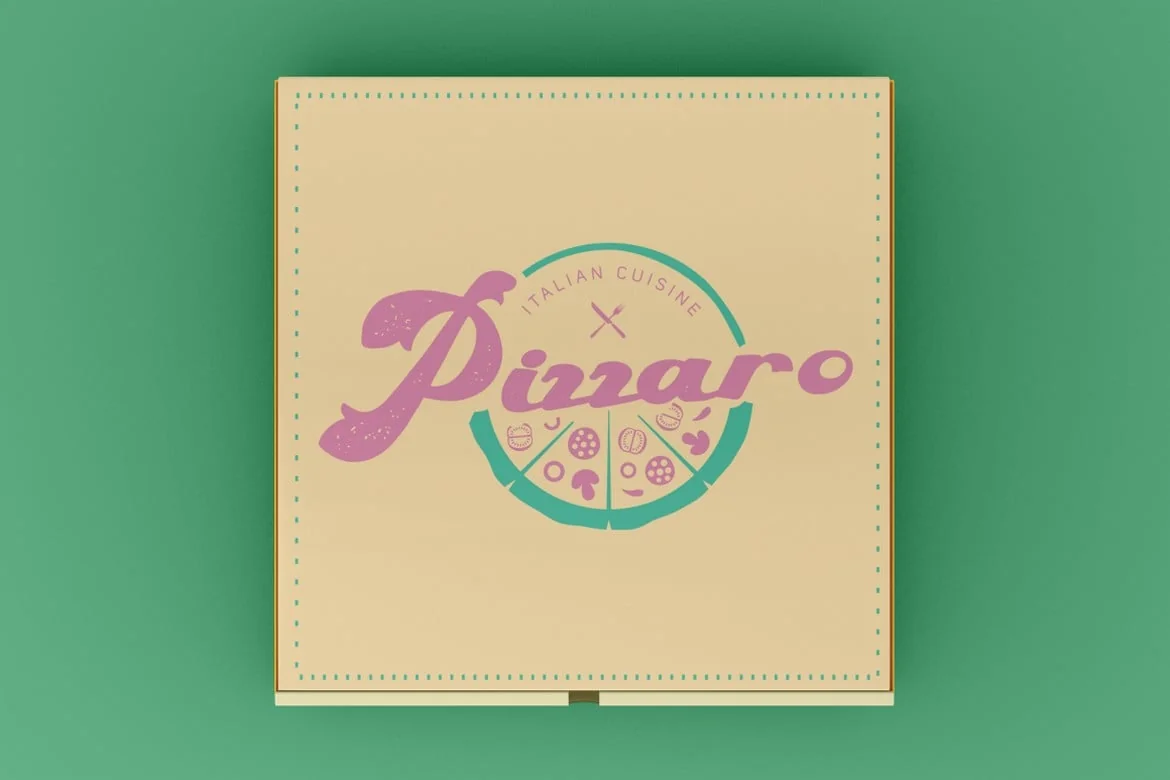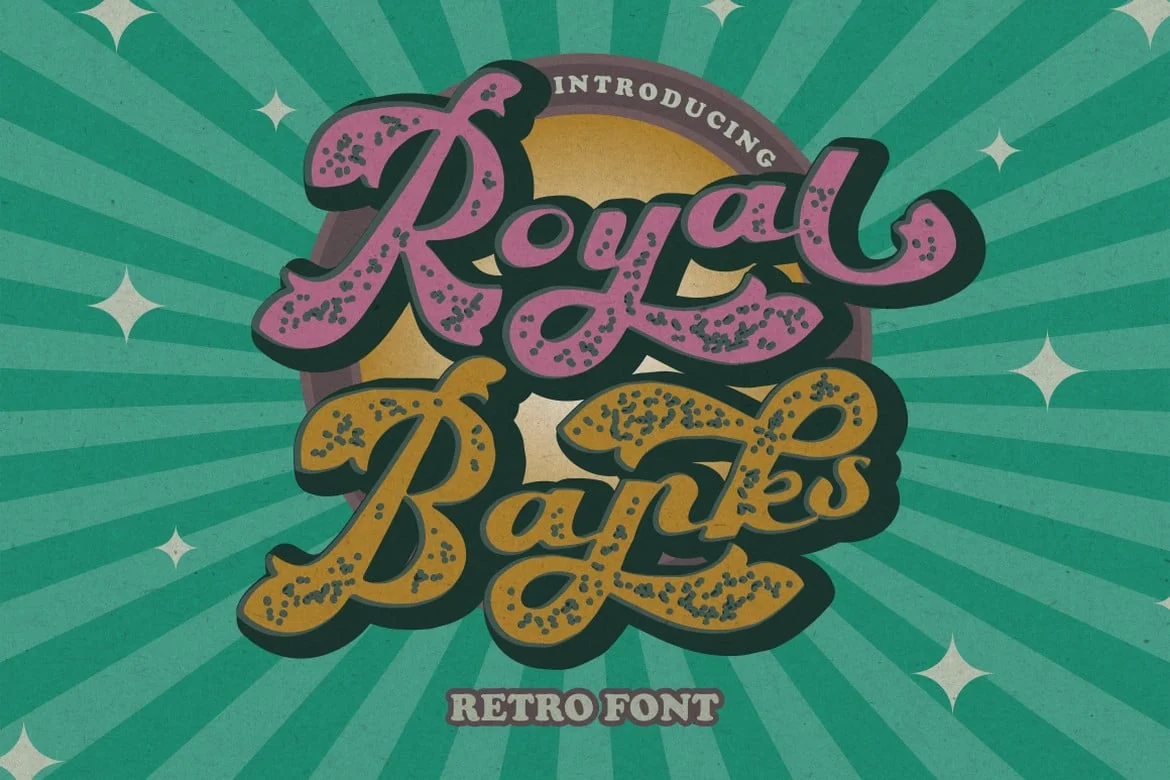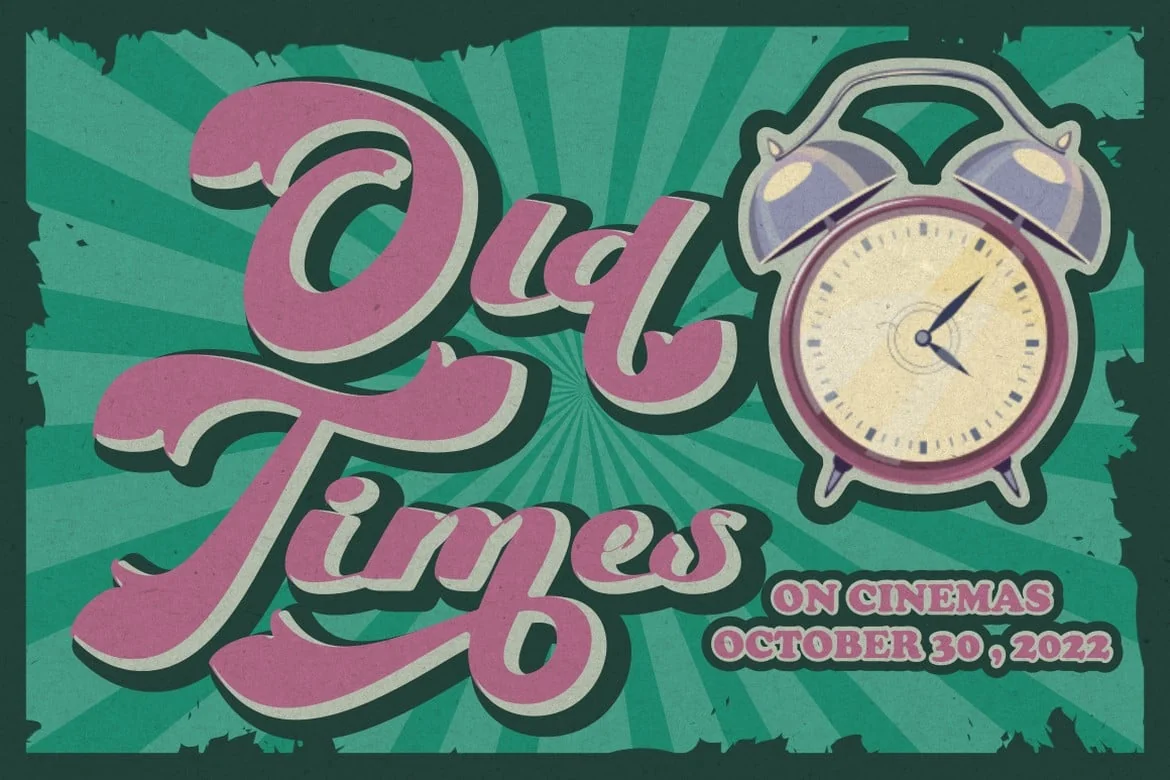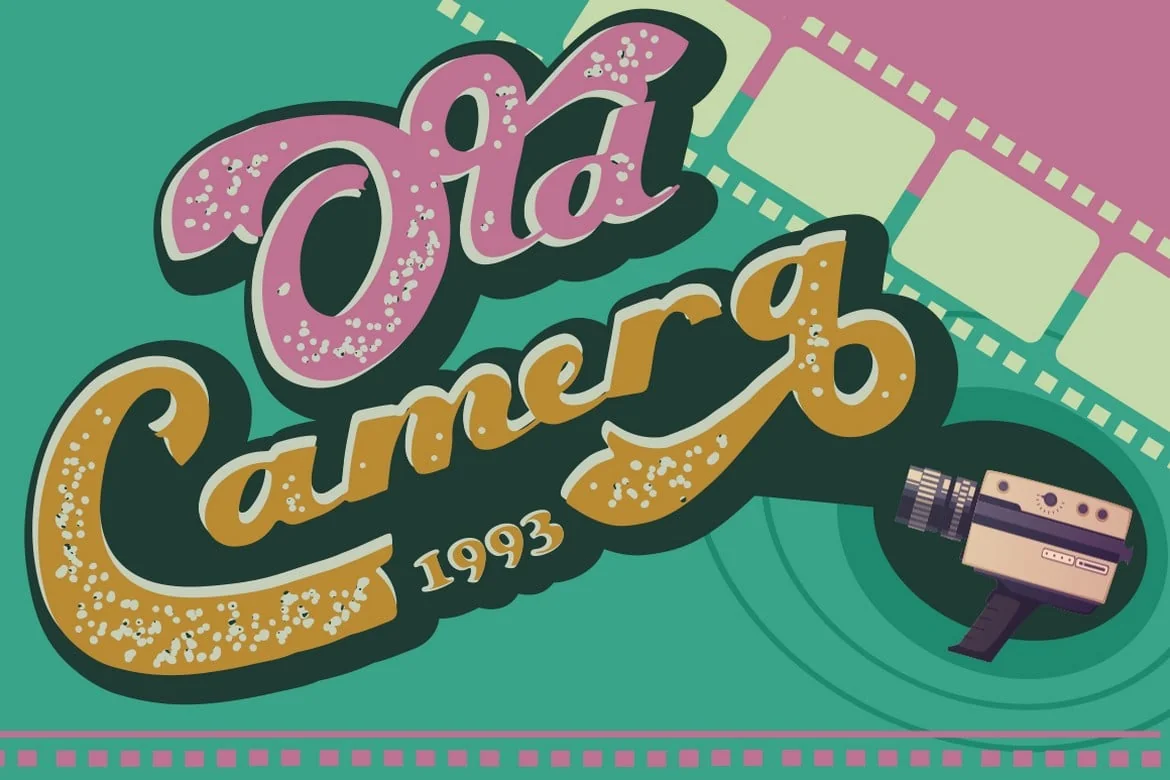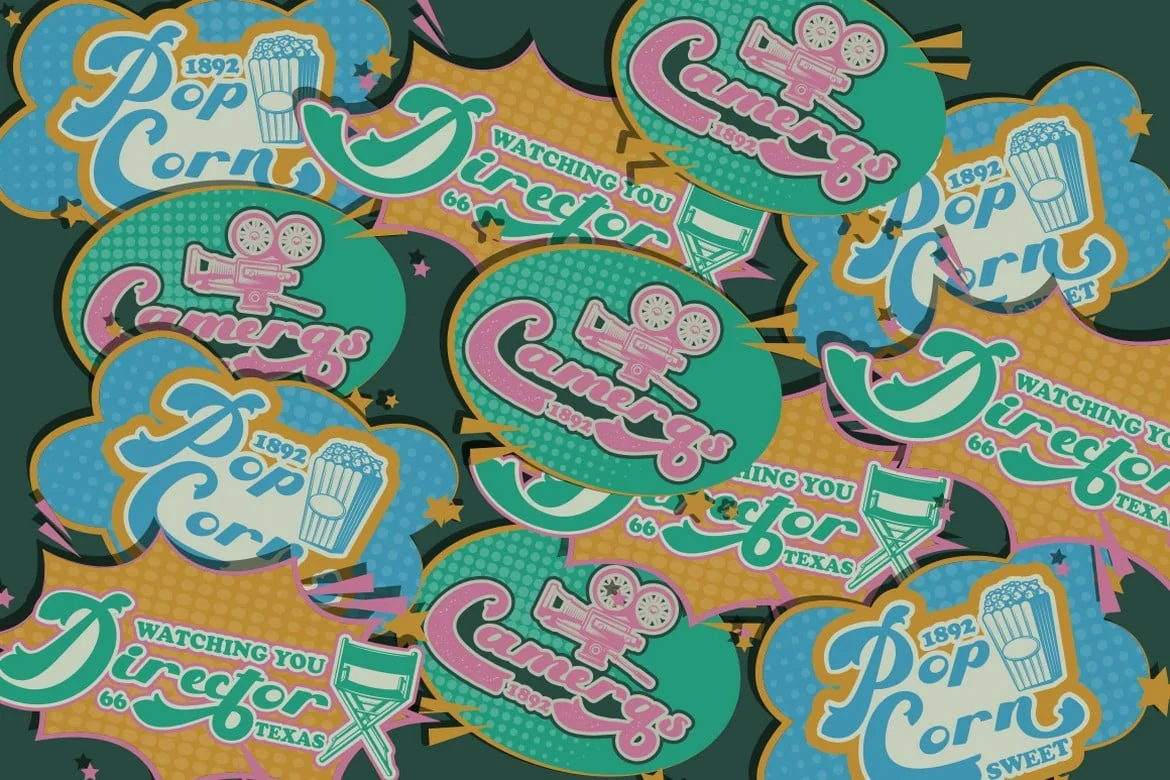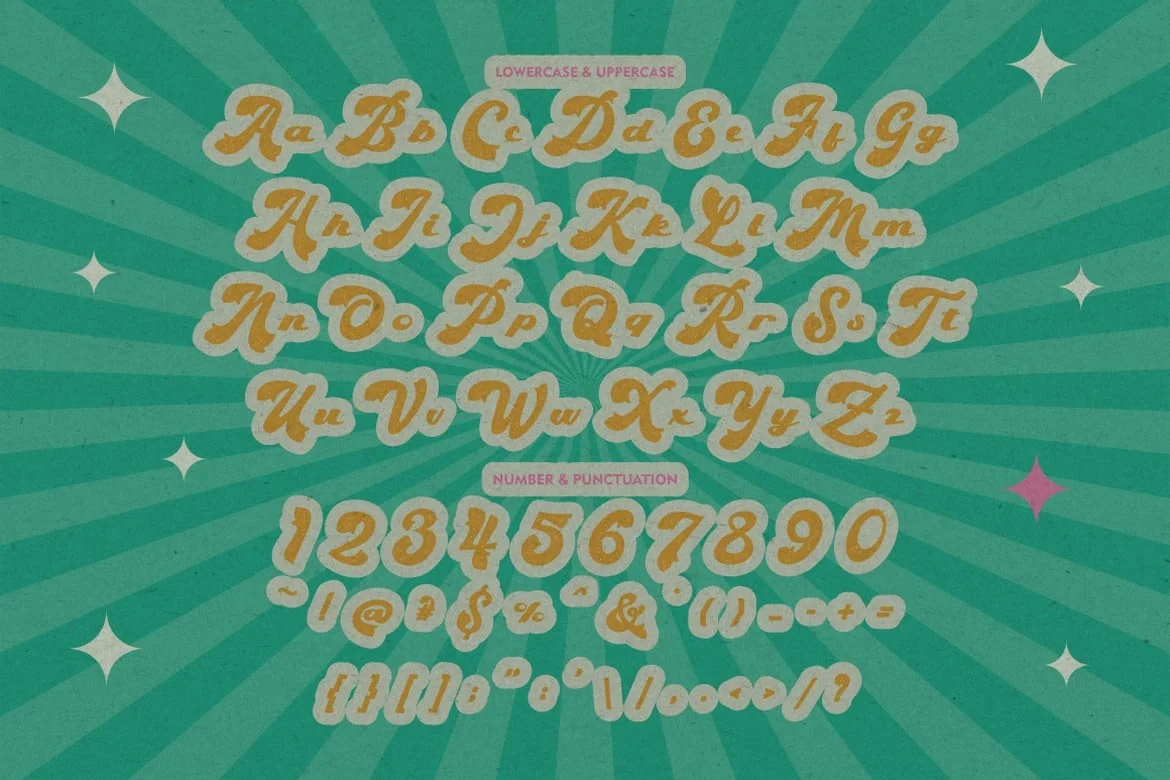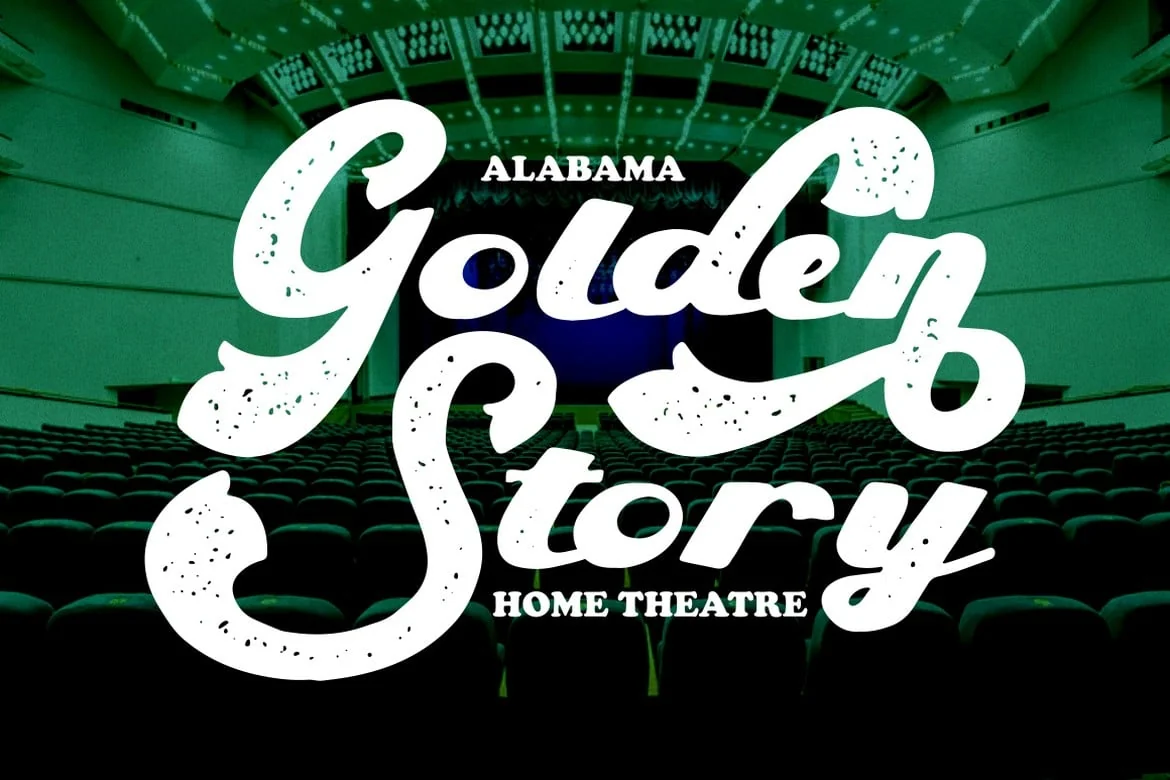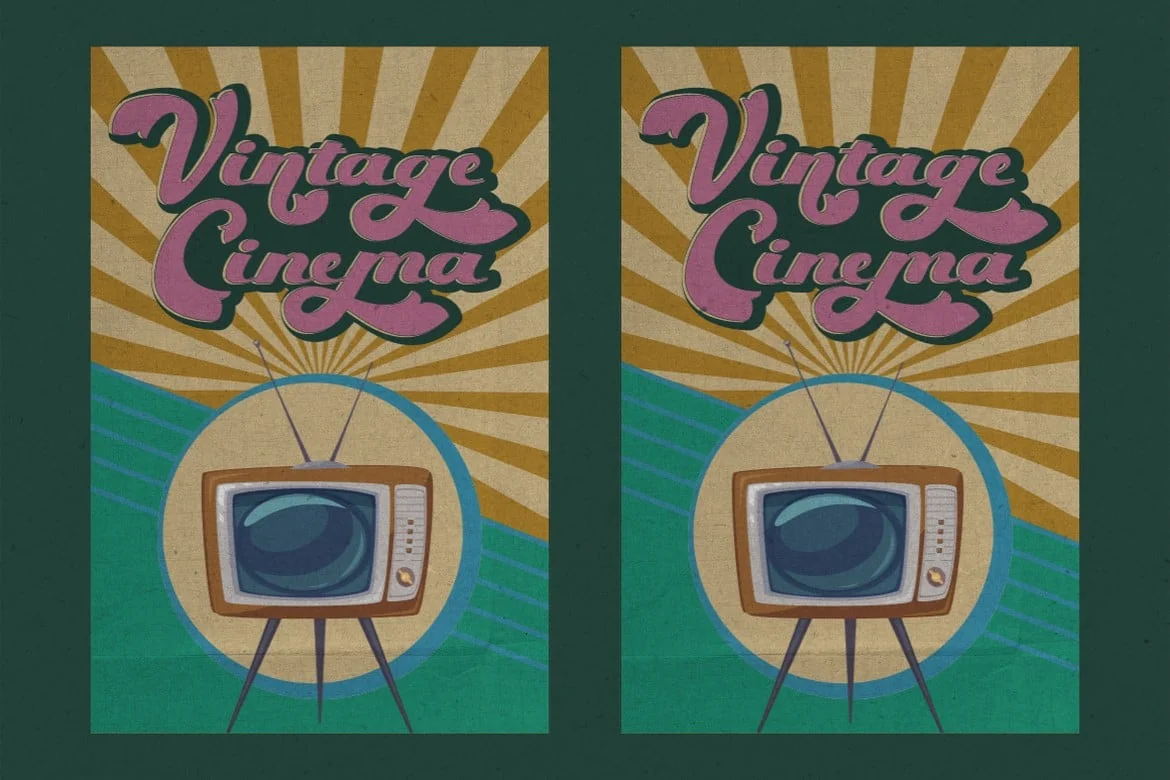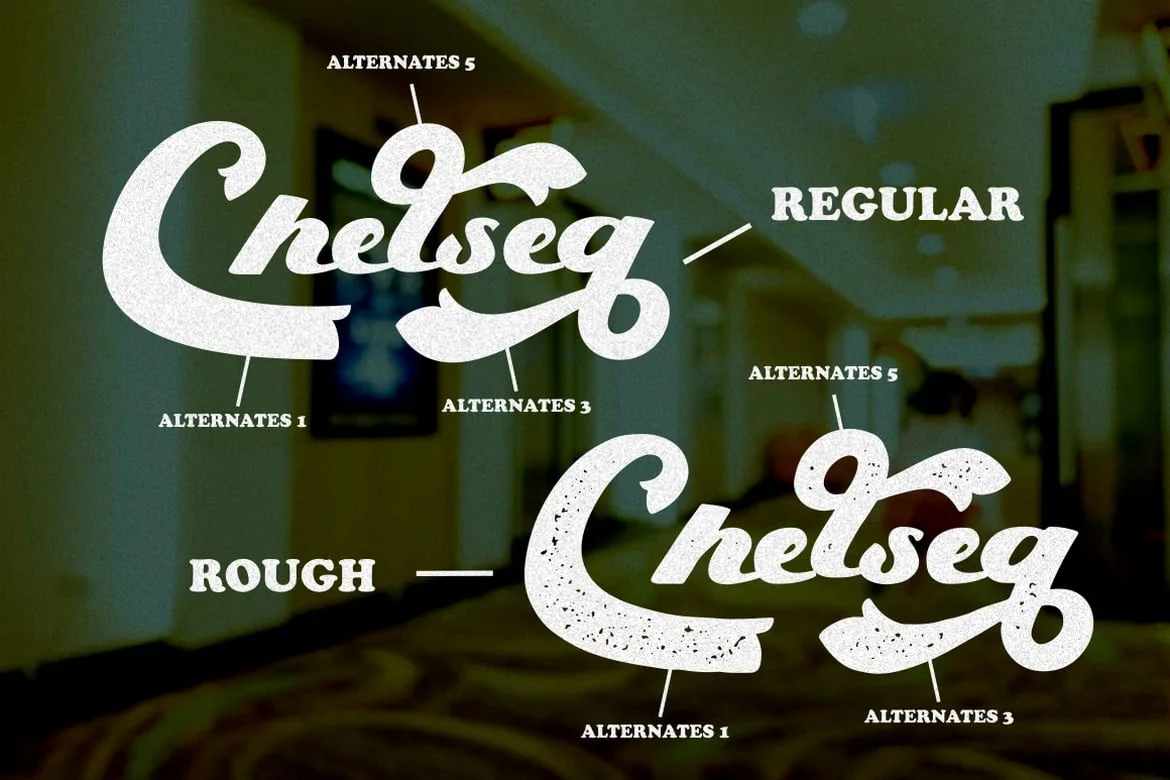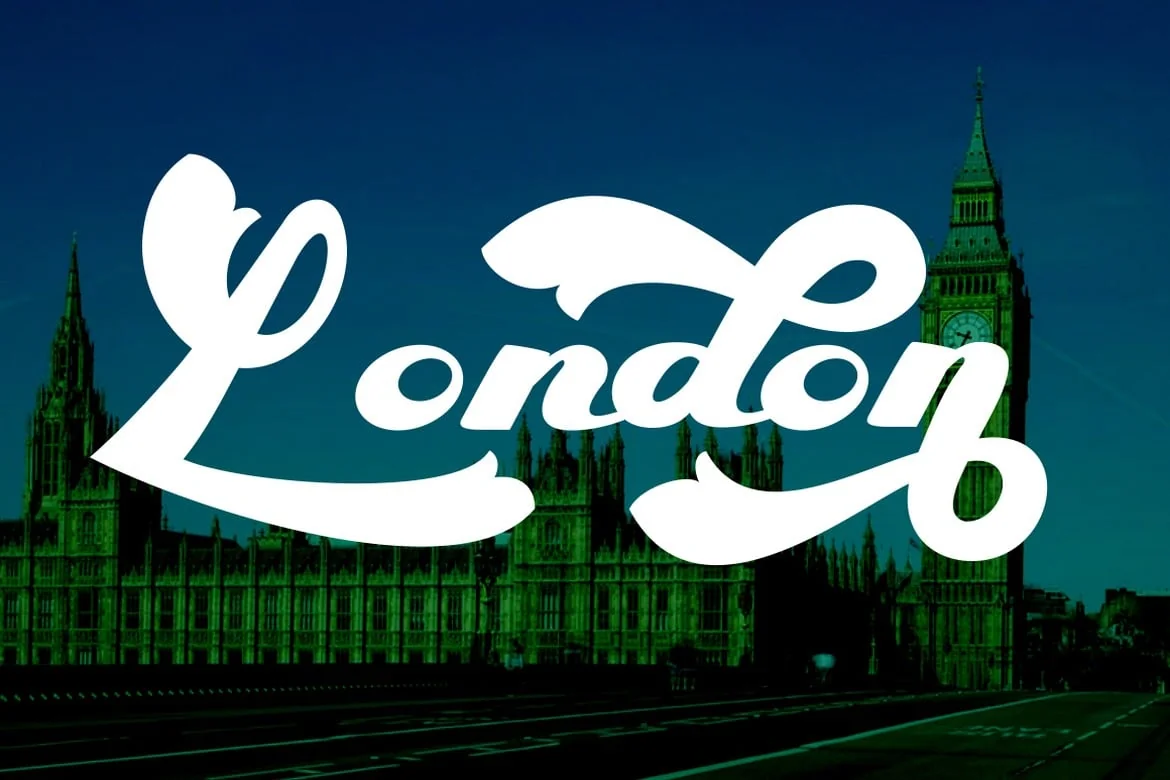
Royal Banks – Retro Bold Font
Royal Banks – Retro Bold Font. In Royal Banks, I try to combine retro style with luxury and aesthetics touch. So the Royal Banks can be used in various projects with retro/vintage and luxury themes or another project with bold font. Such as logos, branding, posters, packaging, book covers, quotes, titles and others. Royal Banks come with clean and rough font version.
Come with Opentype feature with a lot of alternates, its help you to make great lettering. Royal Banks is also support multi language.